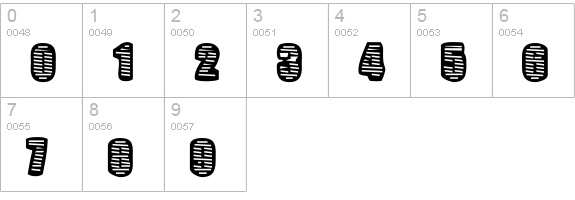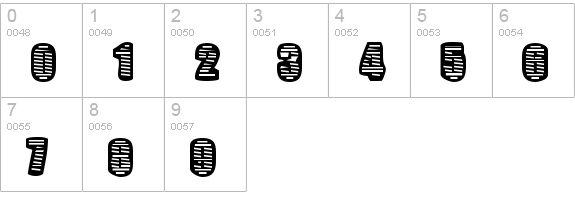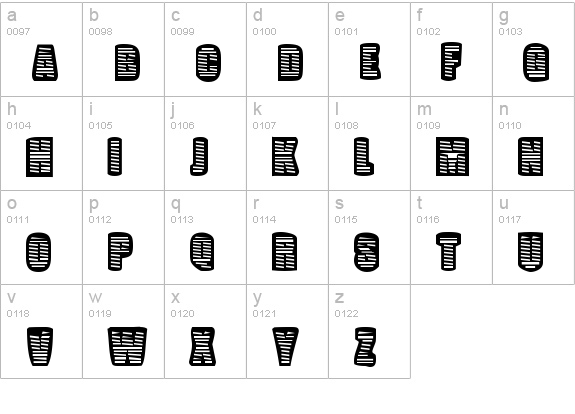
Pop Will Eat Itself Font Details
The Pop Will Eat Itself font is a bold and dynamic typeface that exudes a sense of rebellion and creativity. Its edgy and modern design makes it perfect for projects that require a touch of attitude and flair. The font features sharp angles and sleek lines that give it a unique and eye-catching appearance. What sets the Pop Will Eat Itself font apart is that it is freely available to download at FontsMarket.com. This means that you can easily access and use this striking font for all your design needs without any cost. Whether you're working on a poster, album cover, or branding project, the Pop Will Eat Itself font is sure to make a bold statement and leave a lasting impression. Give your designs a fresh and contemporary look with this exciting font today!